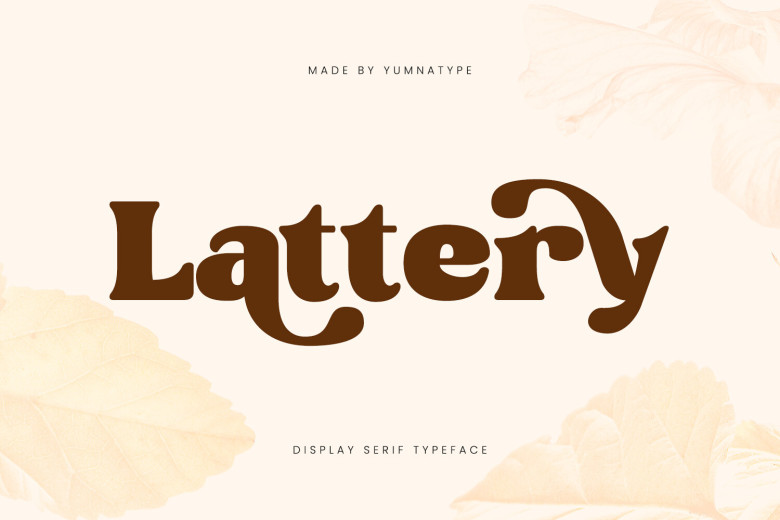
Lattery Font
Lattery is a noteworthy typeface of the serif display family that can be utilized to grab the audience’s attention deliberately. The composition of each letter in Lattery is highly considered with round shapes to bring the gentle feeling into your text. Added to that, the thickness of the chosen font symbolizes compactness and sensibility. On the other side, thickness and thin lines as the main features of the image provide a rather intensive texture.
Lattery Serif Font